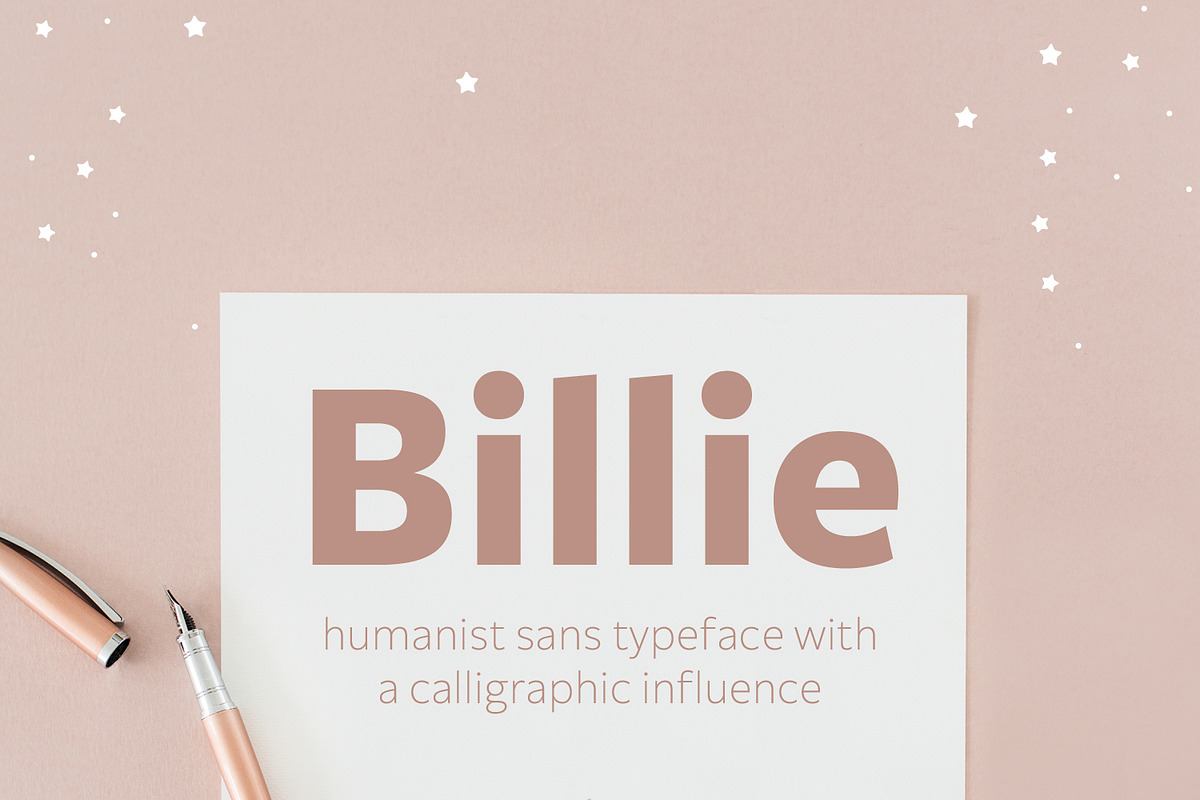
Billie Font Family Free Download is a versatile and stylish typeface family created by FontPeople, designed to bring elegance and flexibility to your designs. With a wide range of weights and styles, Billie is perfect for any project, from modern branding and logo design to editorial layouts and website design.
Whether you're looking for a bold, impactful typeface or a refined, lighter option, Billie provides a cohesive look with a perfect balance between readability and style. Its clean lines and smooth curves make it ideal for both print and digital media. Billie Font Family Free Download lets you explore this elegant family in personal projects before purchasing a commercial license.
Add a sophisticated and professional touch to your designs with Billie — the font family that adapts to any creative project.